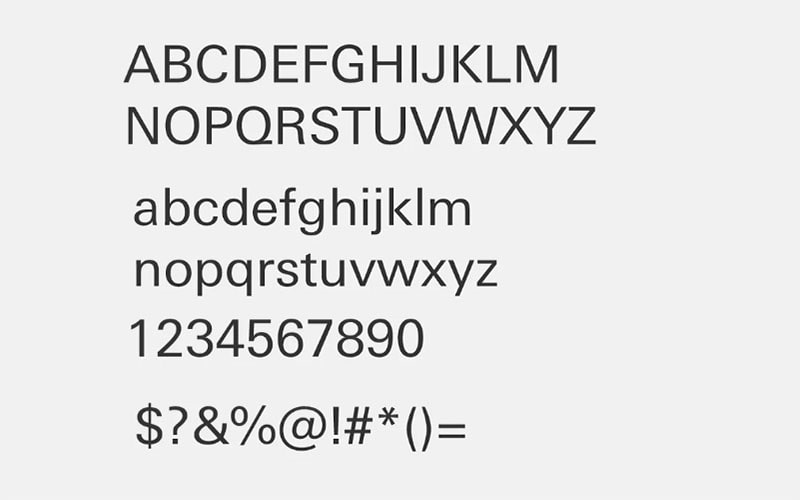
The Bud Light Font is an integral part of the branding for Bud Light, one of the most recognizable beer brands globally. Known for its clean, modern, and approachable style, plays a crucial role in conveying the brand’s identity.
It is a customized typeface created specifically for Anheuser-Busch, the company behind Bud Light. The Bud Light Font is available in several styles to cater to different branding needs.
Styles are Bud Light regular, Bud Light bold, and Bud Light italic. These styles make the Bud Light Font versatile and suitable for various applications.
It features clean, geometric letterforms with a modern sans-serif style, ensuring readability and a contemporary look. Includes uppercase and lowercase letters, numerals, punctuation marks, and special symbols.
Bud Light Font
Featured on branded merchandise like t-shirts, hats, and promotional items. Employed in print, digital, and outdoor advertising to maintain a cohesive brand image.
A classic sans-serif font is known for its clean and modern look, similar to the Bud Light Font such as Effra Font designed by Jonas Schudel and Dalton Maag, and the Chanel Logo Font designed by Chase Babb.